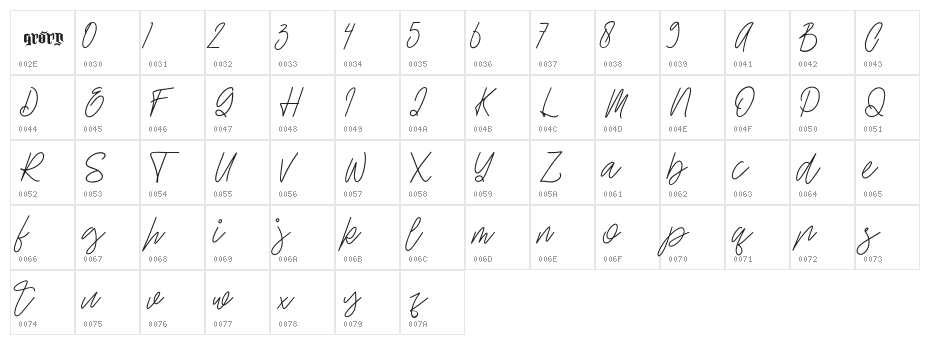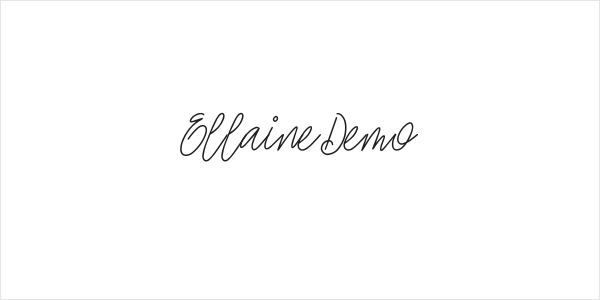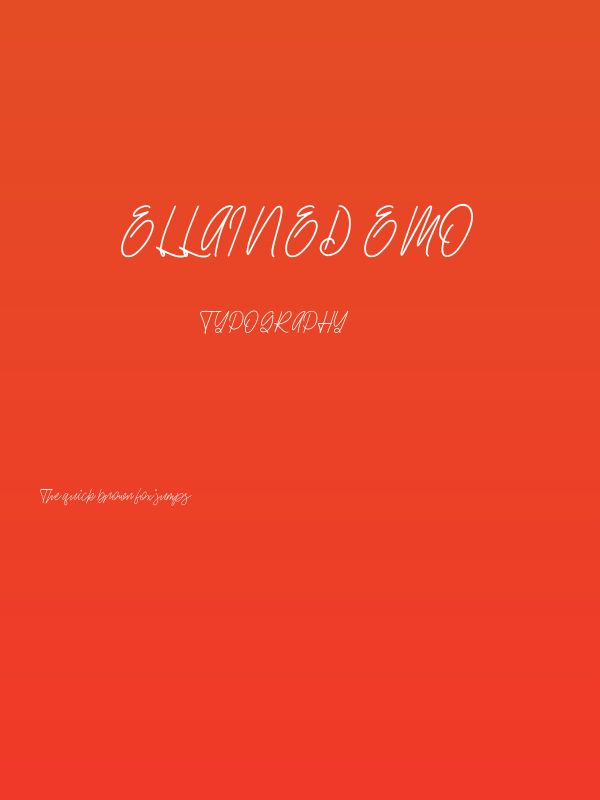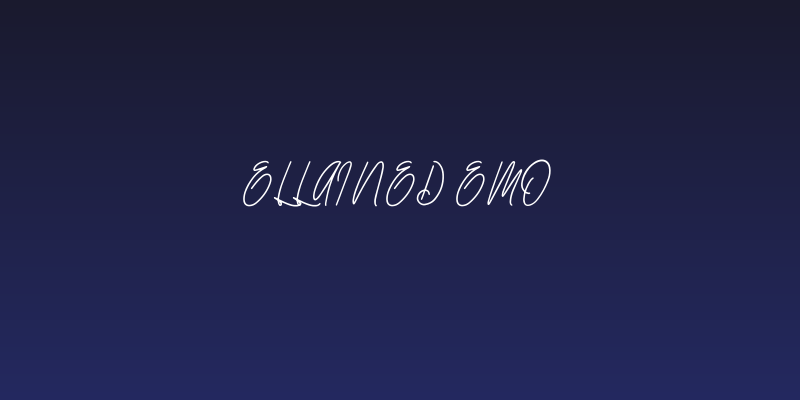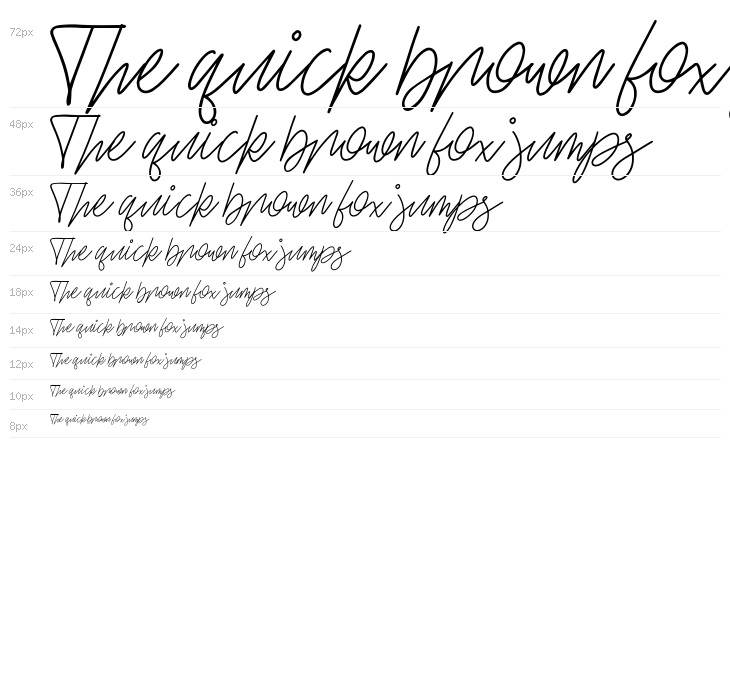
EllaineDemo Font
EllaineDemo Description
This font features a fluid, cursive style with a handwritten appearance, characterized by elegant, flowing lines and a natural, organic feel. The uppercase letters are slightly more structured, while the lowercase letters exhibit a more casual, freeform style. The numbers maintain the same fluidity, ensuring consistency across all characters. The special characters are seamlessly integrated, maintaining the overall aesthetic. This font is ideal for projects that require a personal touch, such as invitations, greeting cards, or branding materials that aim to convey elegance and sophistication.
| Overall Style | Elegant, Handwritten |
| Use Case | Headlines, Invitations, Personal Branding |
| Proposed Projects | Ideal for invitations, greeting cards, personal branding, and elegant design projects. |